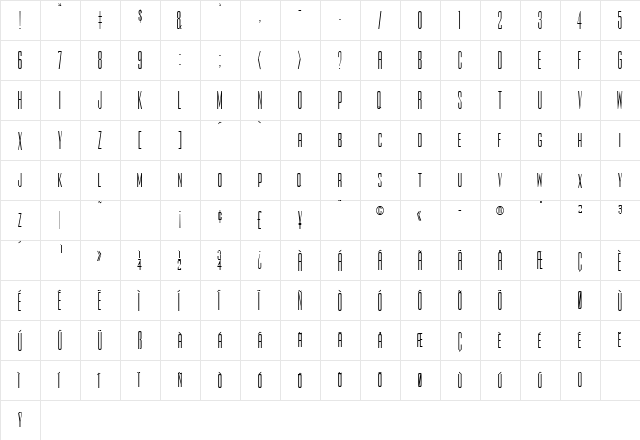
Rothman Regular
Design Context for Rothman Typeface
Rothman is a composed and adaptable typeface that performs quietly and consistently across a wide range of design contexts.